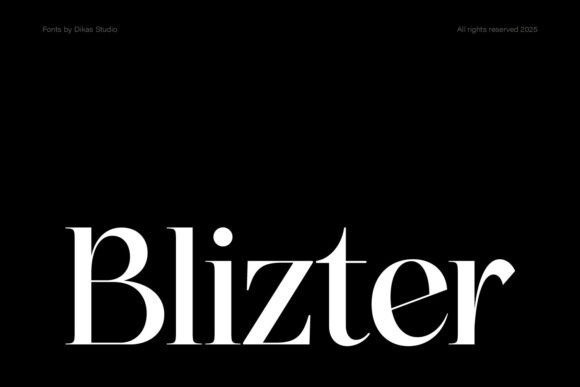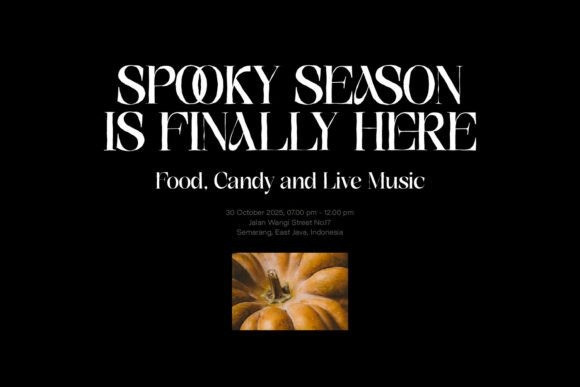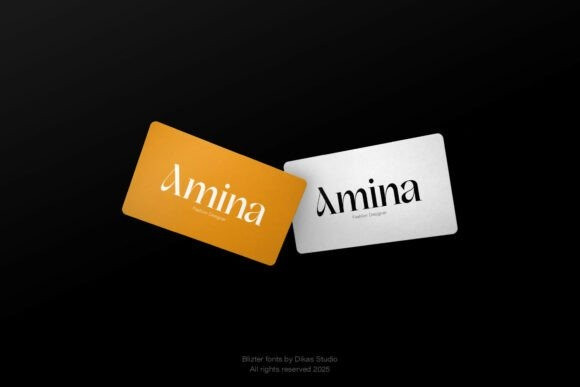
DKS Blizter Font
DKS Blizter Font is a sophisticated serif typeface that masterfully balances high contrast with soft, flowing curves. Designed to evoke elegance and modern refinement, it comes in two distinctive styles—regular and rough—and includes alternates and ligatures to enhance creative expression. Whether you’re crafting fashion editorials, luxury product packaging, or high-end branding, Blizter brings a graceful yet impactful presence. With its classic charm and contemporary sharpness, this font turns typography into timeless design.